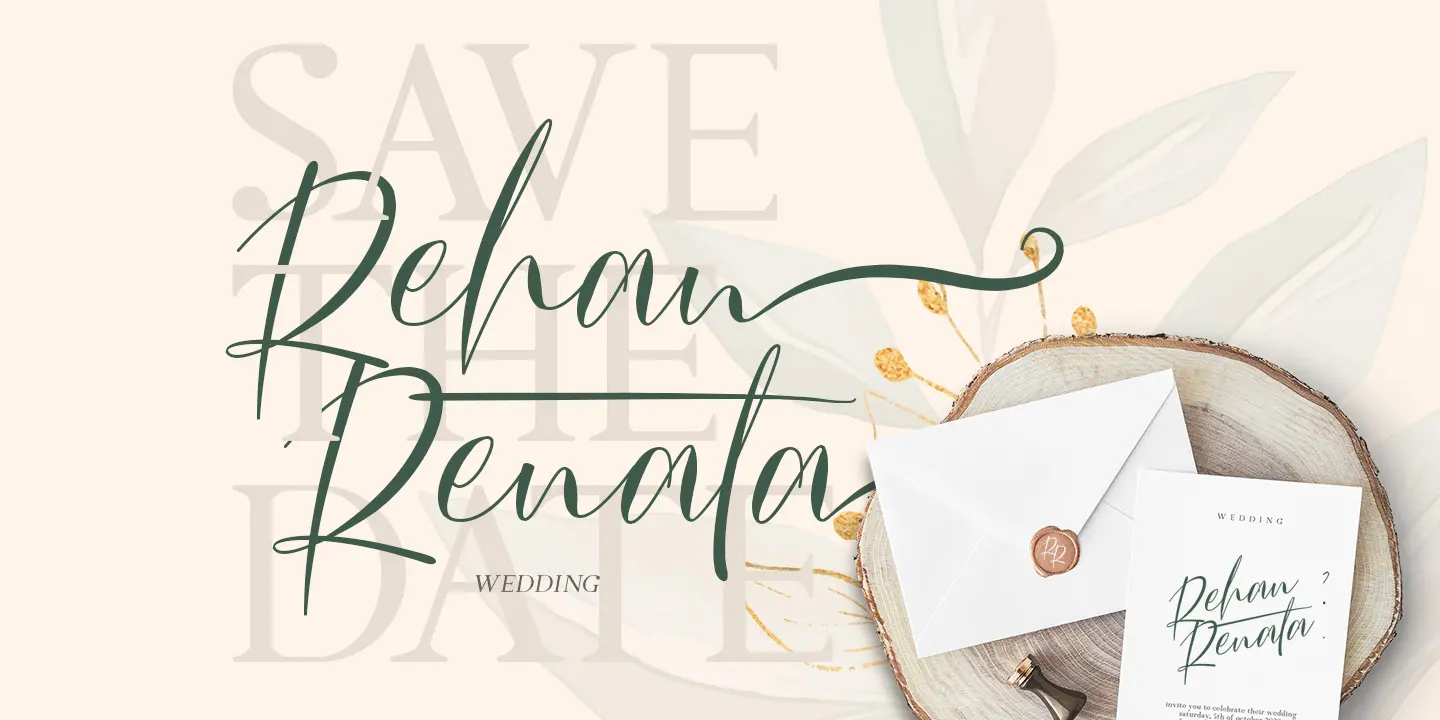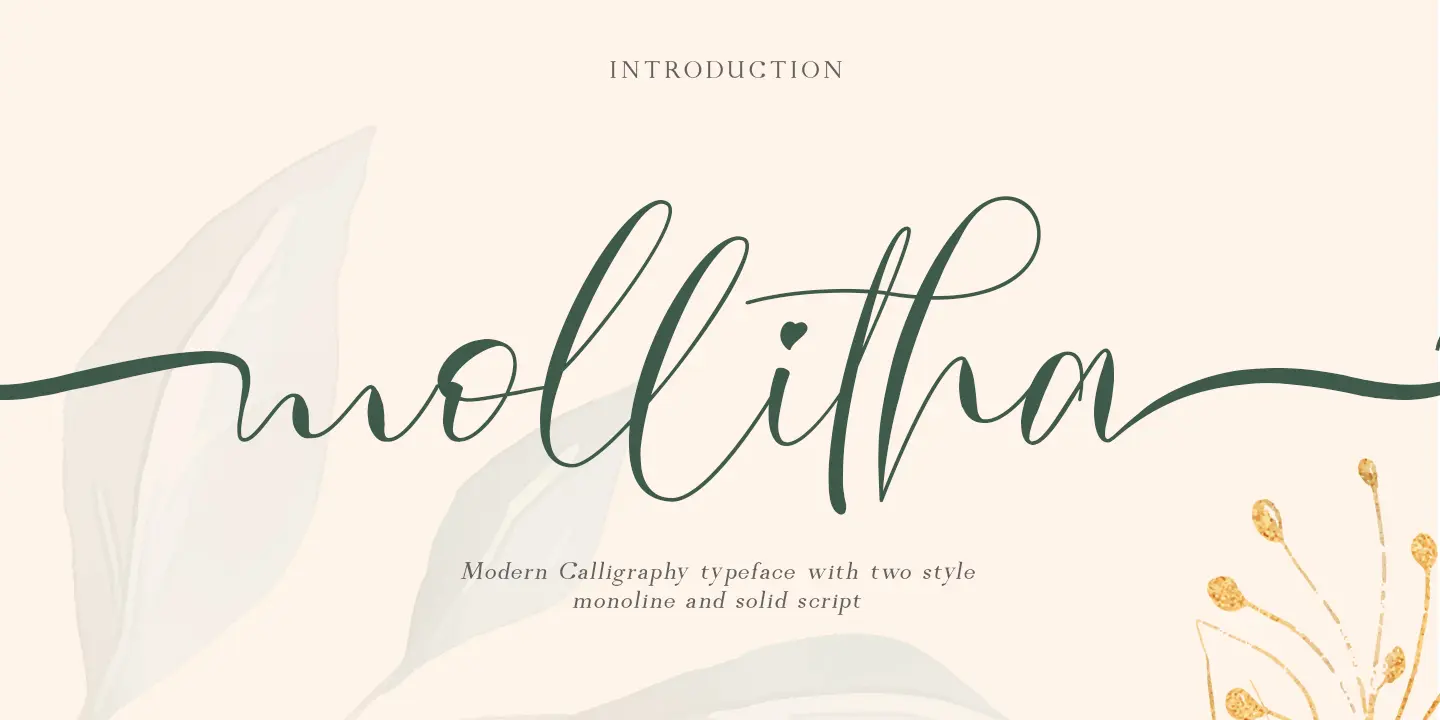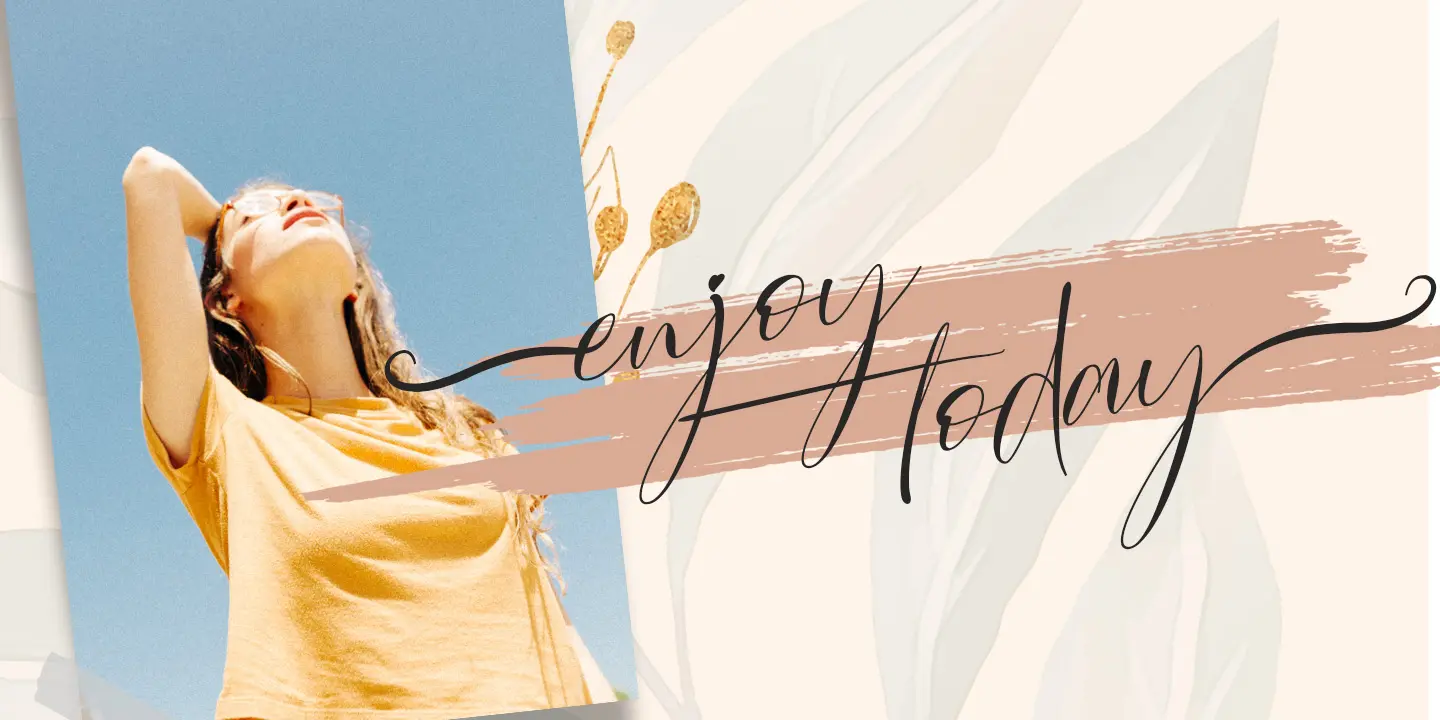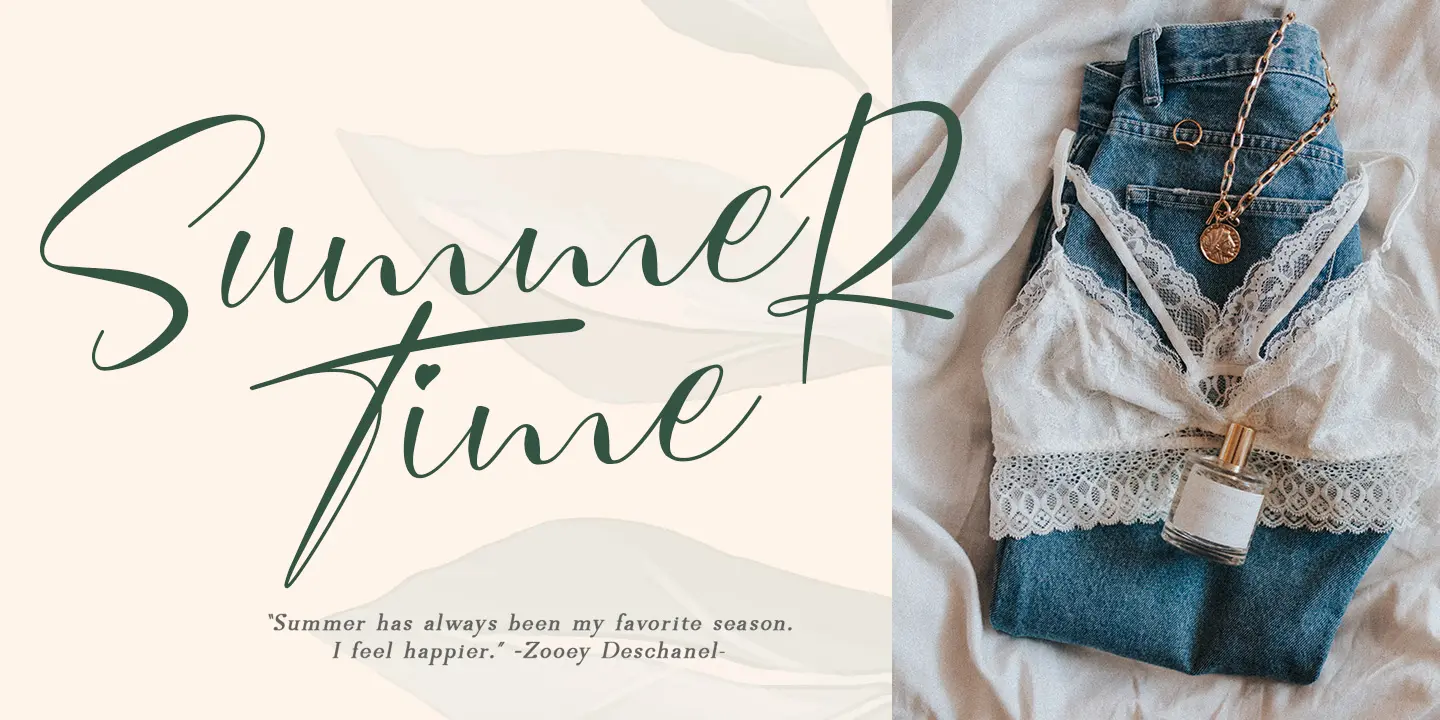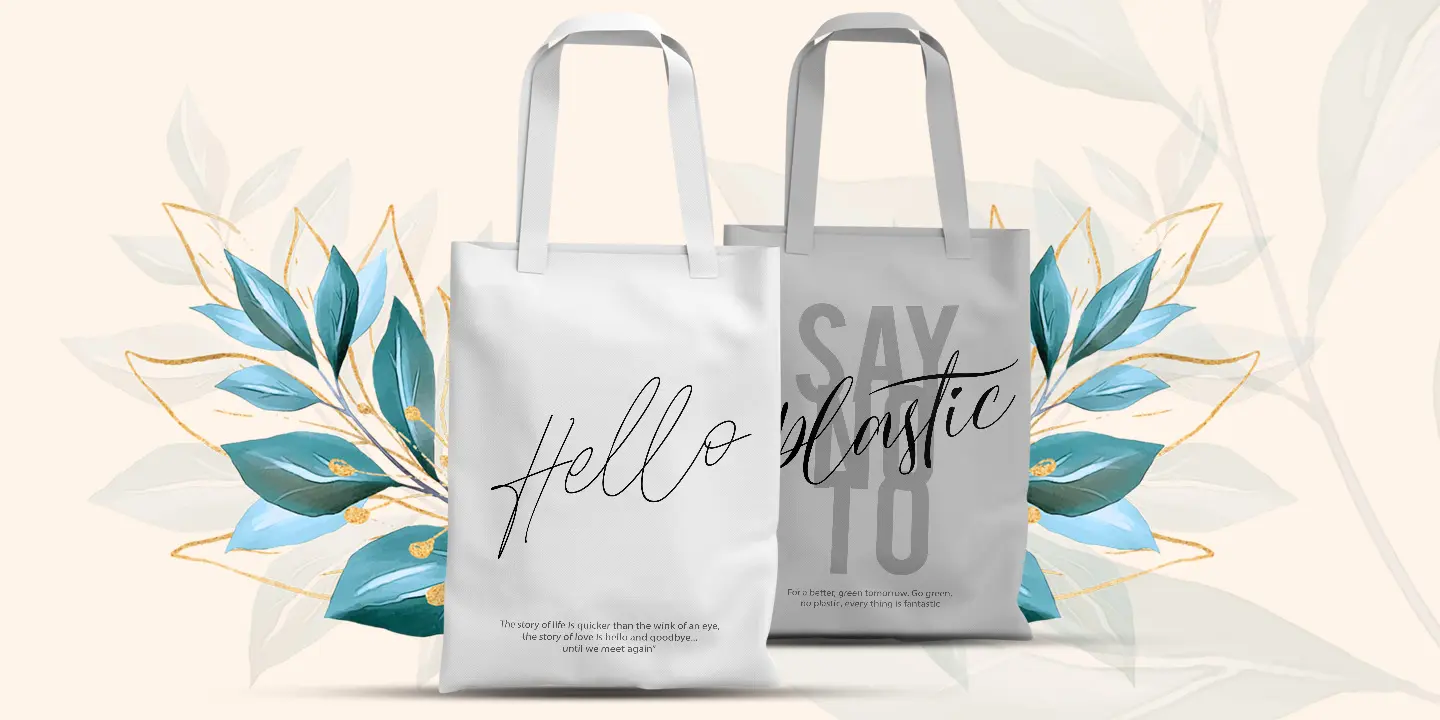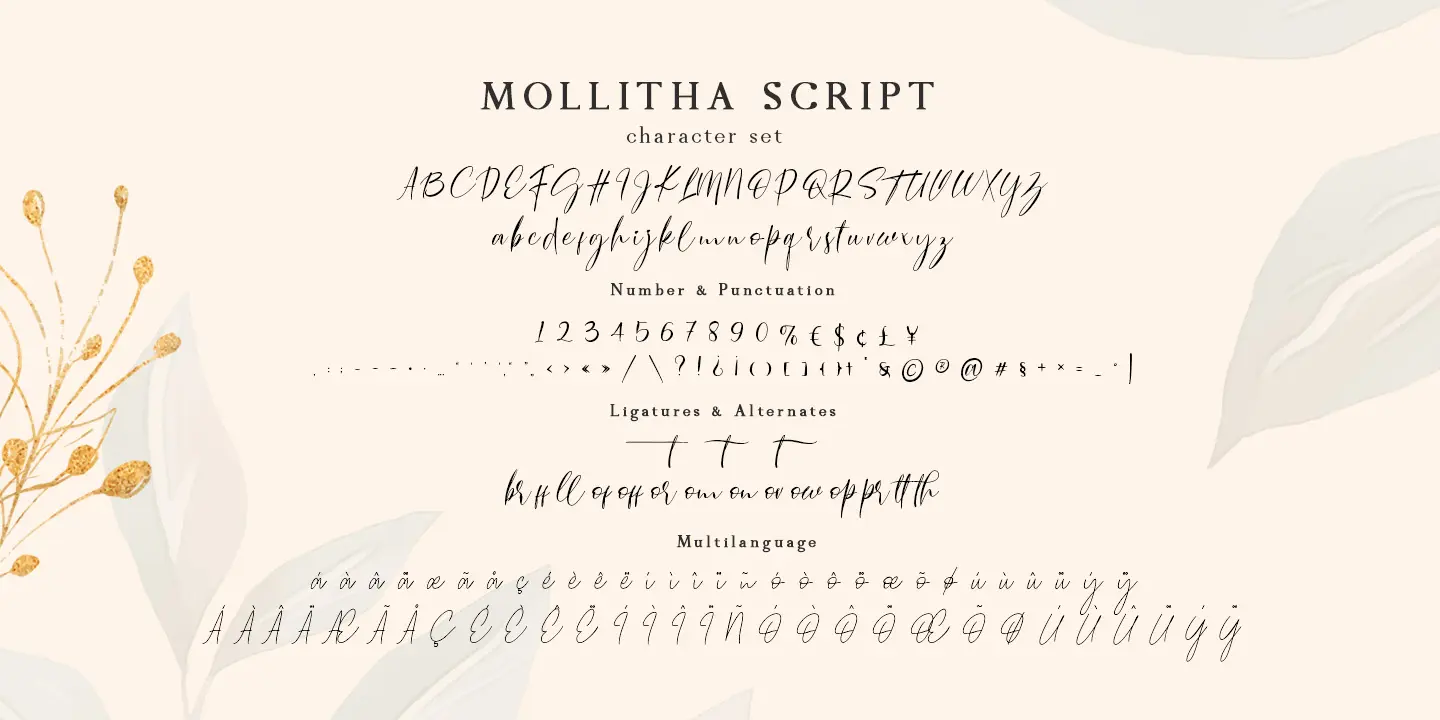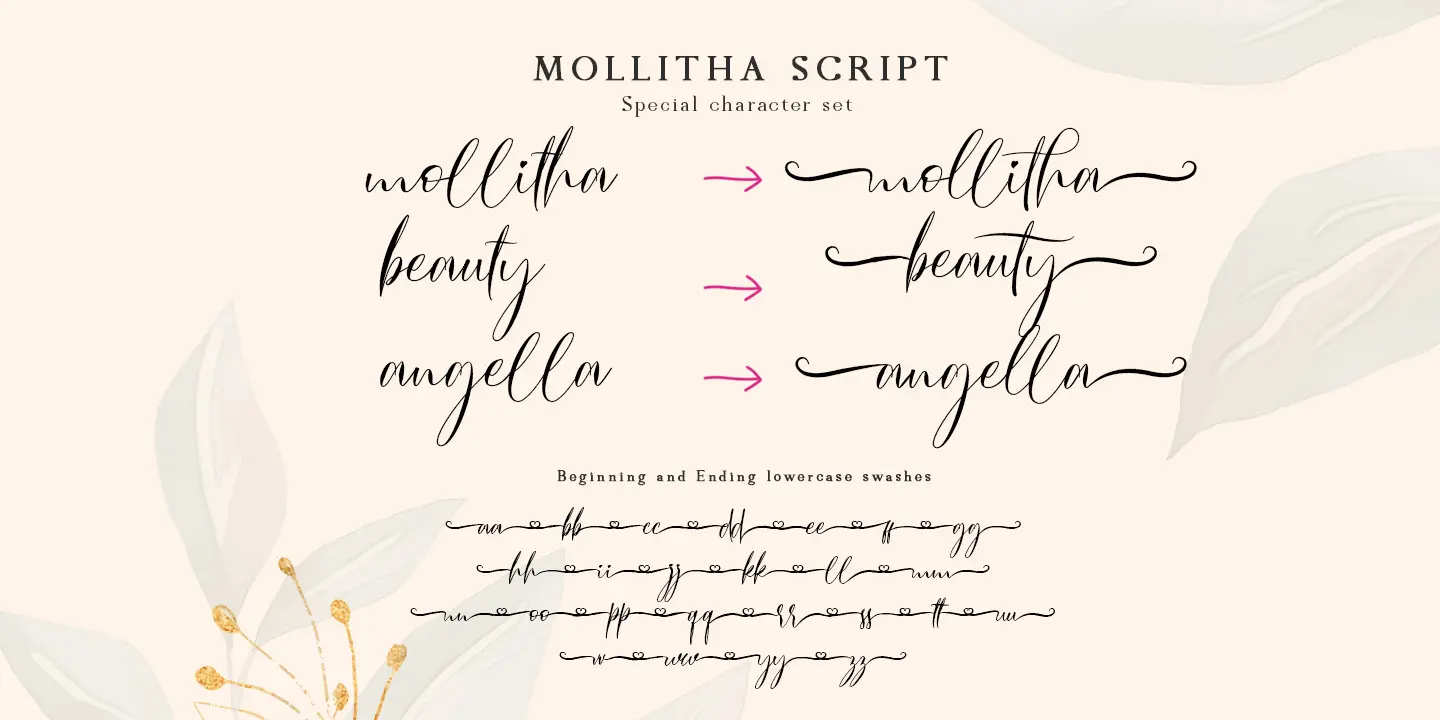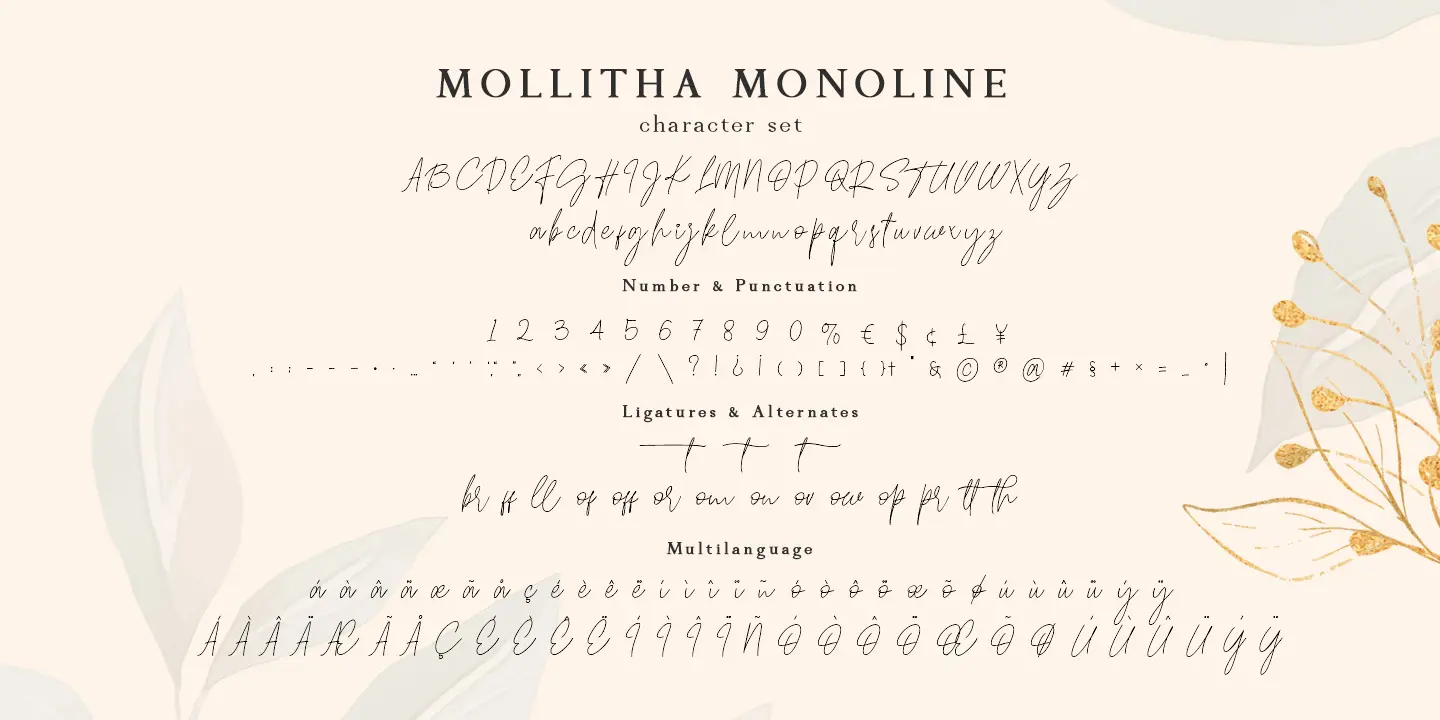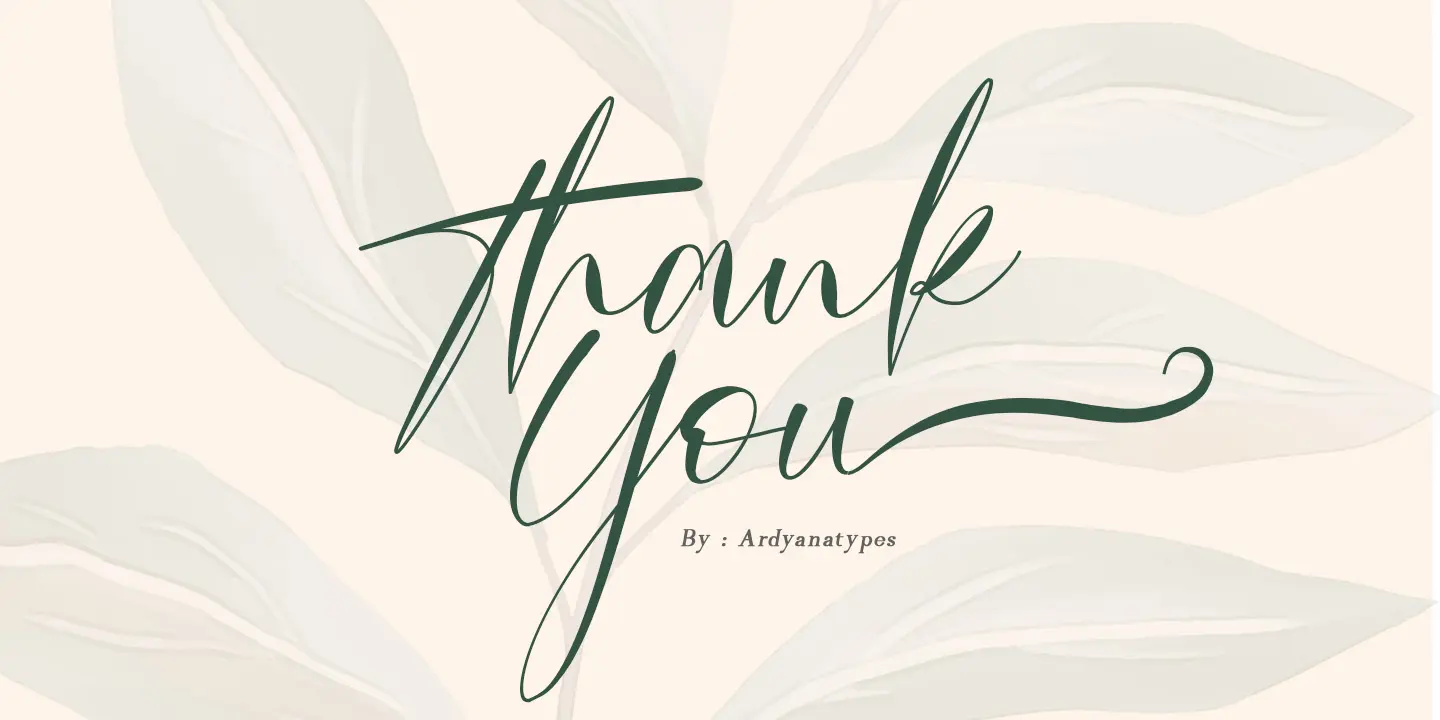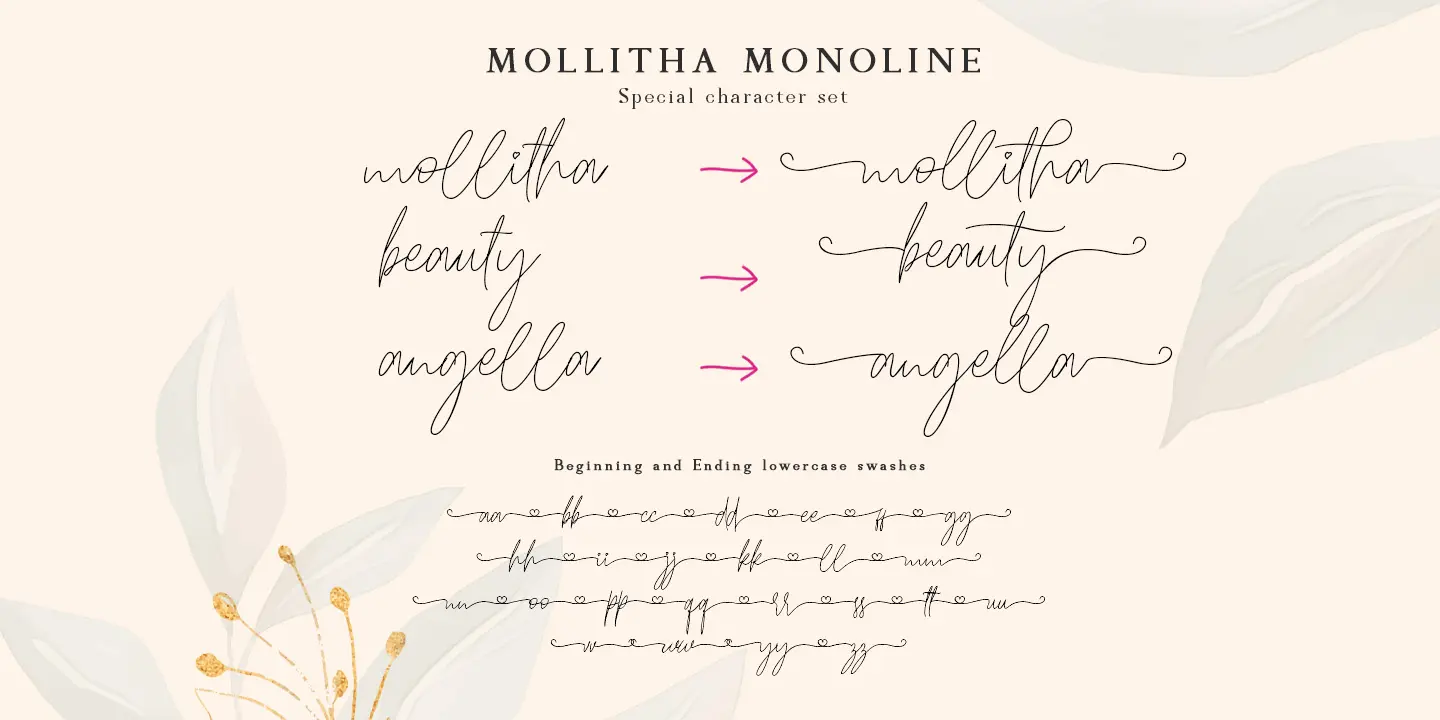
Mollitha
Mollitha is a font created by giving special touches to make it look beautiful and attractive. Mollitha also has 2 different types, but they have the same shape, to provide choices that are suitable for each of your designs. Mollitha is included in the modern type of calligraphy so that Mollitha is very suitable if applied to every design such as poster designs, signatures, logos, quotes, album covers, business cards, product designs, and many other design projects. Mollitha has its own charm when used. We make this font look elegant, classy, easy to read, stylish, easy to remember, and easy to use.